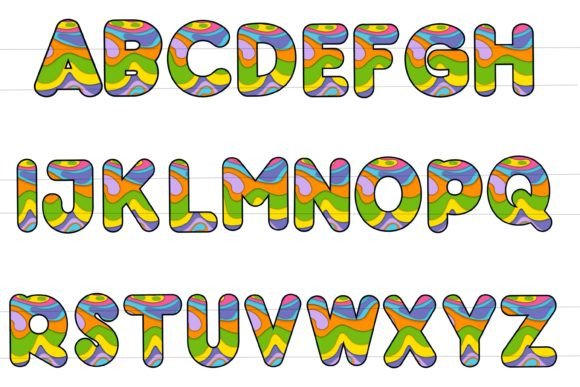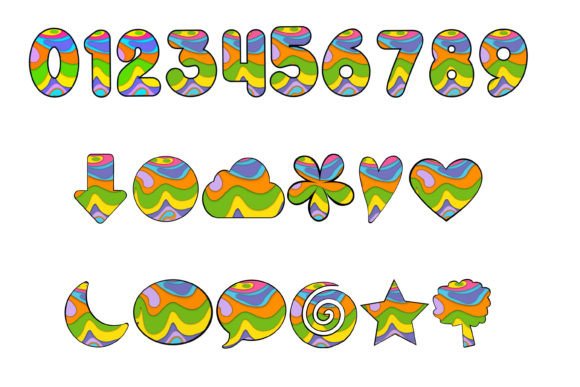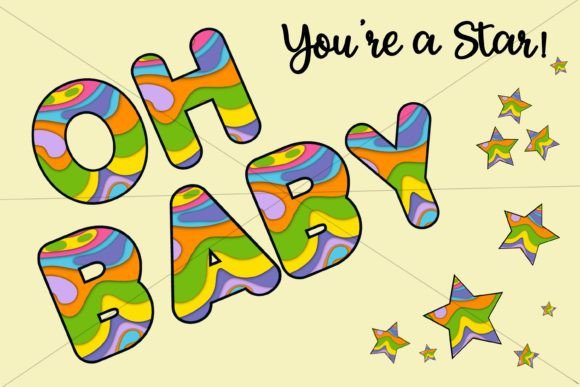
Introduction to Primary Waves Font
Have you ever stared at a blank canvas, waiting for inspiration to strike, and suddenly a burst of vibrant colors floods your mind? That’s exactly what happens when you discover the Primary Waves Font – a delightful paper-cut font that will elevate your creative project to new heights.
As a designer, you’re always on the lookout for unique design resources that can give your work an edge. And that’s exactly what the Primary Waves Font offers – a high-quality, free download that’s perfect for adding a playful touch to your designs. With its transparent background and bold, colorful strokes, this font is a game-changer for any creative project.
Key Features of Primary Waves Font
- Unique, modern font with a transparent background, ideal for graphic designers and artists.
- Primary Waves Font is a versatile, customizable design element, perfect for adding a touch of modernity to creative projects.
Honest Review: Primary Waves Font
I recently stumbled upon the Primary Waves Font and was excited to give it a try for my latest creative project. As a designer, I’m always on the lookout for high-quality design resources that can help bring my ideas to life.
Here are a few things that work well:
- ✨ The font has a clean and modern aesthetic that’s perfect for creative projects.
- ✨ The transparent background makes it easy to customize and use in a variety of design contexts.
- ✨ The font is highly legible, even at smaller sizes.
- ⚠️ The font is a sans-serif, which may not be suitable for projects that require a more traditional or serif font.
- ⚠️ The font’s simplicity may make it feel a bit generic or overused in certain contexts.
Overall, I’m really impressed with the Primary Waves Font. It’s a high-quality design resource that’s perfect for a wide range of creative projects. If you’re looking for a clean and modern font, I’d definitely recommend giving it a try.
Tips for Getting the Most Out of Primary Waves Font
To get the most out of the Primary Waves Font, use it in combination with other high-quality design resources. Experiment with different font sizes, colors, and styles to create unique and eye-catching designs. You can also use it for creating custom graphics and illustrations with transparent backgrounds.
The Primary Waves Font is commonly used in creative projects such as branding, advertising, and packaging design. It’s also suitable for use in social media graphics, presentations, and reports. With its high-quality design and transparent background, it’s an excellent choice for designers and non-designers alike.
What are the technical specifications of the Primary Waves Font?
The Primary Waves Font has a total of 256 glyphs, with support for Latin, Cyrillic, and Greek scripts. It’s a high-resolution font, with a minimum size of 1024×1024 pixels. The font also includes a range of OpenType features, including ligatures, swashes, and ornaments. This makes it a versatile and expressive font that’s perfect for a wide range of design applications.